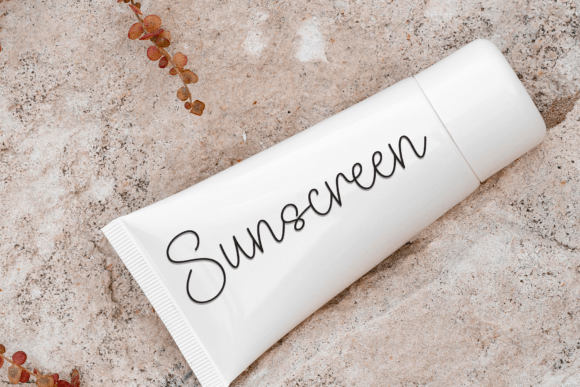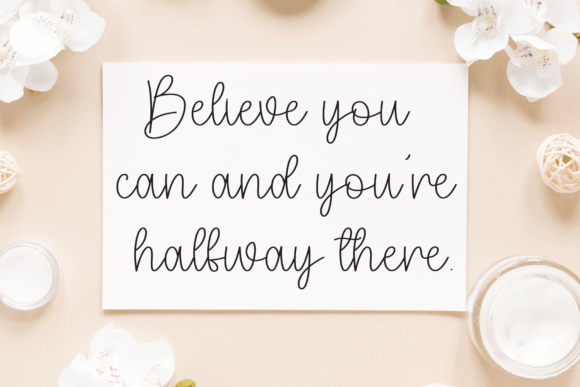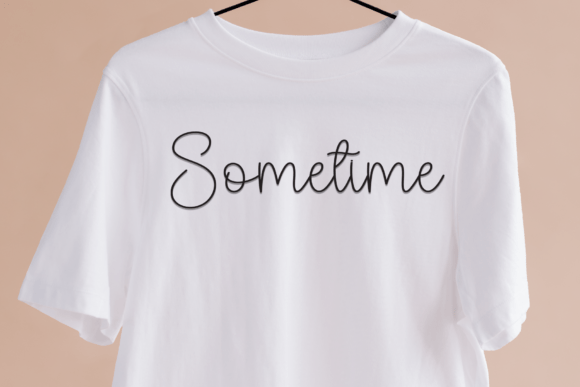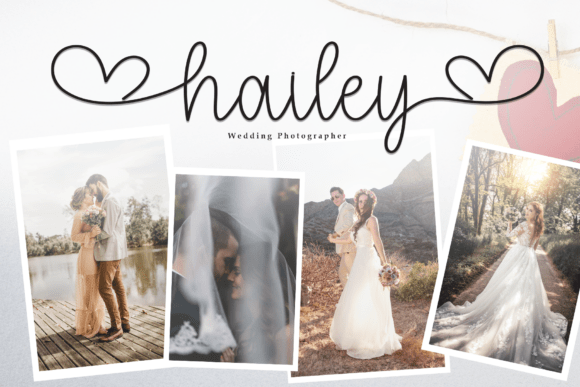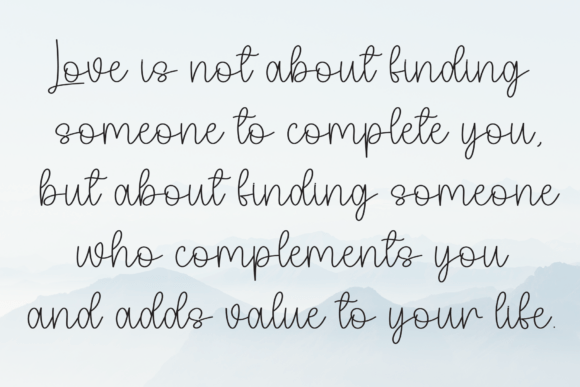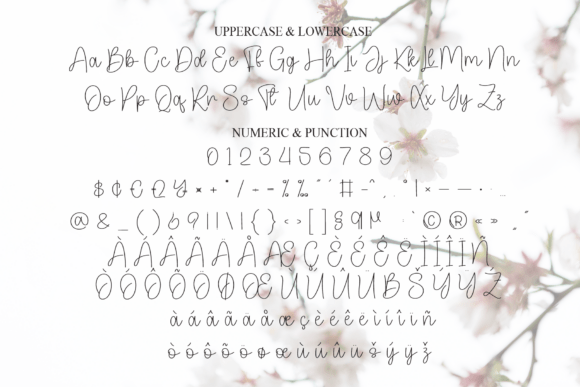
The Perfect Petal to Your Design
Have you ever sat at your desk, staring blankly at a blank canvas, waiting for the perfect idea to strike? It’s a moment every designer knows all too well. But what if I told you that the key to unlocking your next masterpiece lies in a single, elegant font? Enter the Blooming Font, a stylish handwritten script that’s sure to bring a touch of modern magic to your next design project.
With its fluid strokes and charming curves, the Blooming Font is the perfect addition to any logo, packaging, or invitation. Whether you’re a seasoned pro or just starting out, this versatile typeface is sure to add warmth, sophistication, and a dash of creativity to every project. And let’s be honest, who wouldn’t want that? The Blooming Font is a valuable tool for designers of all levels, and we can’t wait to see what you create with it.
- Unique Characteristics: The font features a unique, hand-drawn design with intricate details and subtle flourishes, giving it a distinctive and eye-catching appearance.
- Font Metrics: Blooming Font has a x-height of 0.5 and a cap height of 1.2, providing a balanced and harmonious visual flow.
Blooming Font Review
I recently had the chance to work with Blooming Font, and I must say it’s a mixed bag. Here’s my honest review.
- Creamy texture: The font’s texture is incredibly detailed and adds a unique touch to designs.
- Good for botanical themes: The font’s design makes it perfect for projects related to flowers, gardens, or nature.
- High resolution: The font’s high resolution ensures that it looks great even at larger sizes.
- Difficulty in customisation: I found it challenging to adjust the font’s size and spacing to my liking.
- Not ideal for body text: The font’s design is more suited for titles and headings rather than body text.
- Limited language support: Blooming Font may not be the best choice for designs that require multiple languages.
Overall, Blooming Font is a solid choice for designers who need a unique font for specific projects. However, it may not be the best fit for general design use. With some practice and patience, you can get the most out of this font and create stunning designs.
The Blooming Font is ideal for creating eye-catching titles, headings, and captions for various designs, such as: